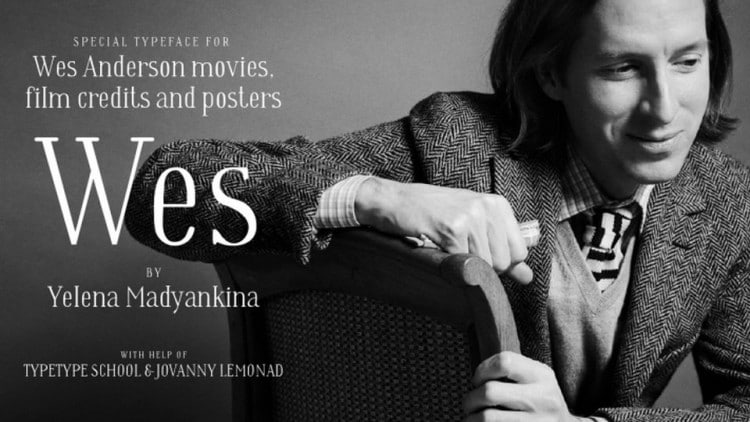
Wes Serif Font
Wes Serif Font is an elegant serif typeface. Wes is not only the name of the font, but also of the great contemporary in the field of directing Wes Anderson. Font Wes in its character and conceptual execution is the same introvert with a deep inner world as Wes Anderson.
Wes font contains a full set of glyphs, supports Latin and Cyrillic. It looks perfect for hand crafted designs, labels, quotes, cards, text and more.